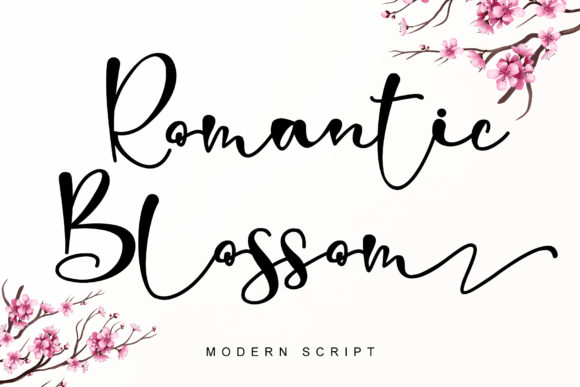
Indulge in the captivating allure of Romantic Blossom Font, a masterpiece that exudes elegance and timeless beauty. This exquisite script font, meticulously crafted by Stefani Letter, transports you to a realm of ethereal charm with its flawless curves and delicate strokes.
Romantic Blossom Font possesses an enchanting duality, effortlessly blending classic sophistication with a touch of modern flair. Its graceful lines dance across your screen, evoking a sense of timeless romance and refined elegance. Whether you're a seasoned designer or a budding creative, this font will elevate your creations to new heights.
With its versatility, Romantic Blossom Font transcends the boundaries of conventional usage. Its graceful presence lends itself to a myriad of design applications, from enchanting wedding invitations and captivating branding designs to social media posts that radiate with timeless allure.
Prepare to be mesmerized by its varying baseline, a symphony of smooth lines that flow effortlessly, creating a captivating visual rhythm. The font's gorgeous glyphs and stunning alternates add an extra layer of depth and intrigue, providing endless possibilities for customization.
Unleash your imagination and let Romantic Blossom Font guide you on an artistic journey filled with grace, beauty, and limitless potential. Its captivating charm will forever leave an indelible mark on your designs. Immerse yourself in the world of Romantic Blossom Font and let your creativity blossom into extraordinary works of art.